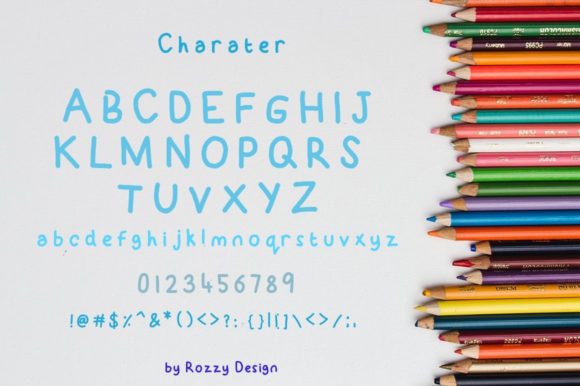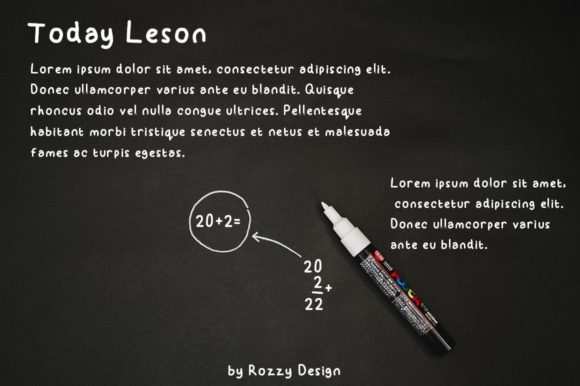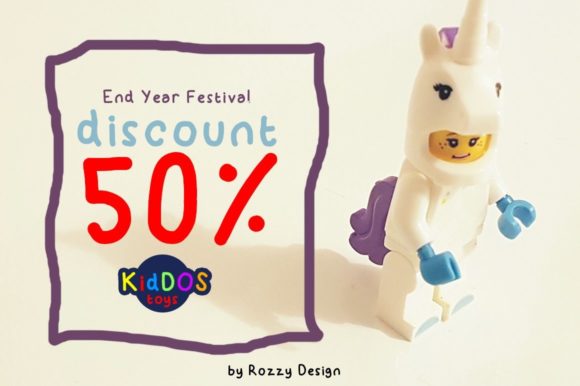
Bringing Childhood Magic to Your Designs
Do you remember the joy of creating art as a child? The scribbles, the colors, the endless imagination? As designers, we often try to recapture that sense of wonder in our work, especially when it comes to projects that feature kids. That’s where Kiddos Font comes in – a delightful, handwritten font that’s sure to bring a smile to your face and a touch of whimsy to your designs.
Perfect for children’s book illustrations, nursery decor, and other kid-themed projects, Kiddos Font is a valuable asset for designers who want to add a playful, approachable feel to their work. Its friendly, approachable style makes it easy to use and combines beautifully with bright colors, creating a visual treat that’s sure to delight both kids and adults alike.
Kiddos Font Key Features
- Character Set: The font includes a comprehensive character set, covering Latin, Cyrillic, and Greek alphabets, as well as a wide range of punctuation marks and symbols.
- Unique Characteristics: Kiddos Font features a playful, childlike aesthetic, with rounded shapes and subtle texture, making it perfect for children’s educational materials, toys, and games.
Kiddos Font Review
Overall, I have mixed feelings about the Kiddos Font. Let’s start with what works well ✨: the font has a playful and energetic vibe that’s perfect for children’s books, educational materials, or any design project that requires a fun and youthful tone. The font is also highly legible, even at smaller font sizes, making it a great choice for body text.
- Playful and energetic vibe
- Highly legible
- Perfect for children’s content
However, there are some limitations to consider ⚠️: the font can feel a bit too casual for formal or professional projects, and the letterforms can be quite rounded, which may not be suitable for projects that require a more formal or serif feel. Additionally, the font’s character set is limited, which may make it less versatile for designers who need to support a wide range of languages.
- May feel too casual for formal projects
- Limited character set
- Not suitable for projects requiring a serif feel
Overall, I would recommend the Kiddos Font for designers who are working on projects that require a playful and youthful tone, but may not be the best choice for more formal or professional projects.
Tips for Getting the Most Out of Kiddos Font
Use Kiddos Font for playful and creative projects, such as:
– Children’s book illustrations
– Party invitations
– Educational materials
Kiddos Font is ideal for projects that require a fun, childlike feel. Use it to add a playful touch to your designs and make them more engaging and memorable.
Alternatives to “Kiddos Font” for Designers
Lobster is a fun, casual font that is perfect for creating a playful and approachable design. It’s great for use in advertising, social media, and other applications where a lighthearted tone is desired.
Compared to Kiddos Font, Lobster has a more relaxed and casual feel, making it ideal for designs that require a friendly and approachable tone.
Great Vibes is a beautiful, hand-drawn font that is perfect for creating a whimsical and elegant design. It’s great for use in invitations, branding, and other applications where a touch of sophistication is desired.
Compared to Kiddos Font, Great Vibes has a more refined and elegant feel, making it ideal for designs that require a touch of sophistication and class.